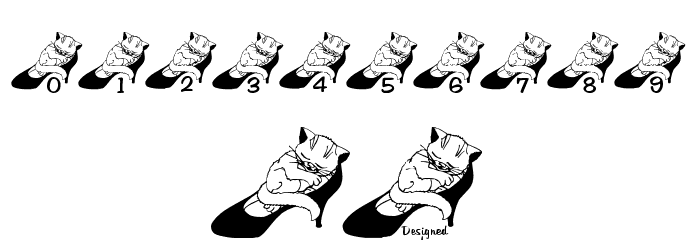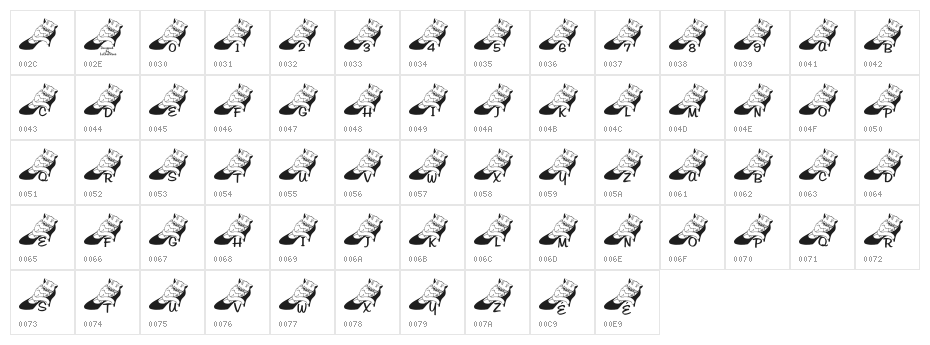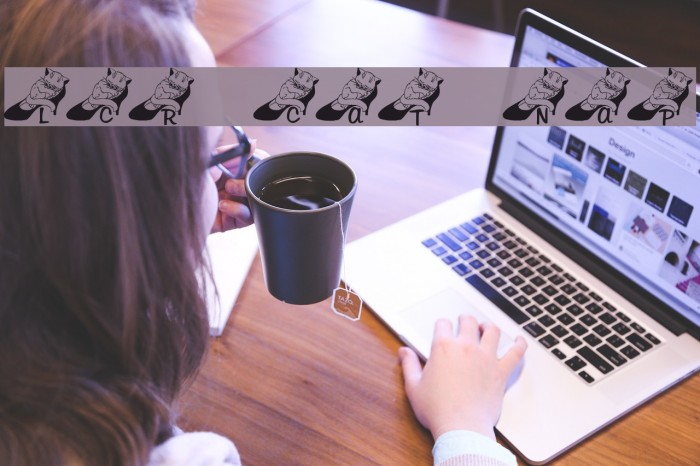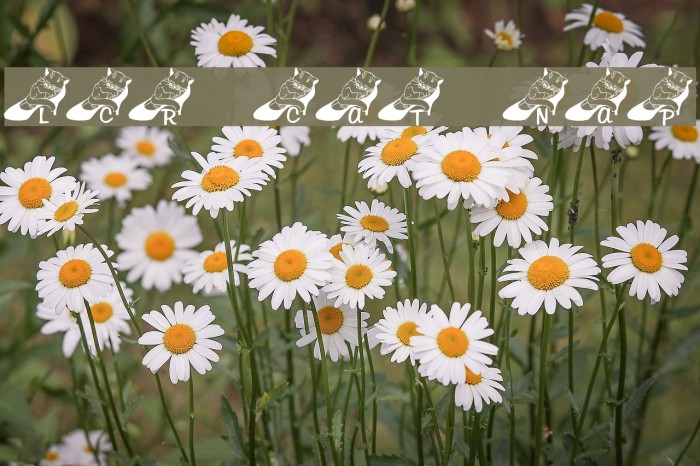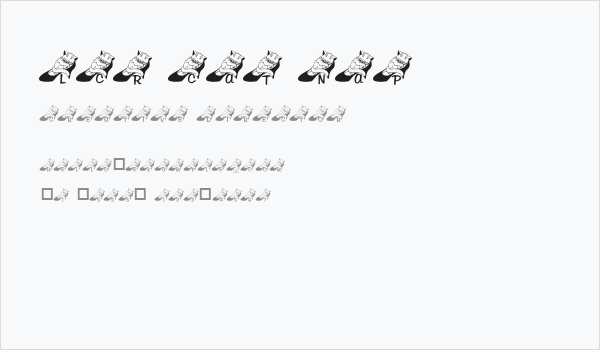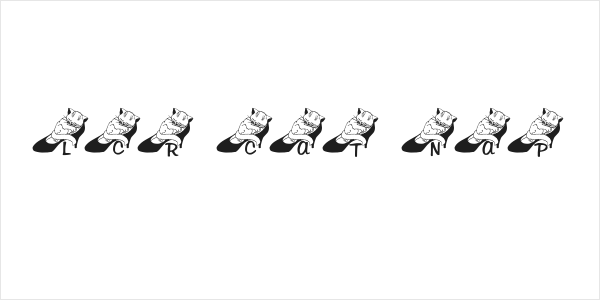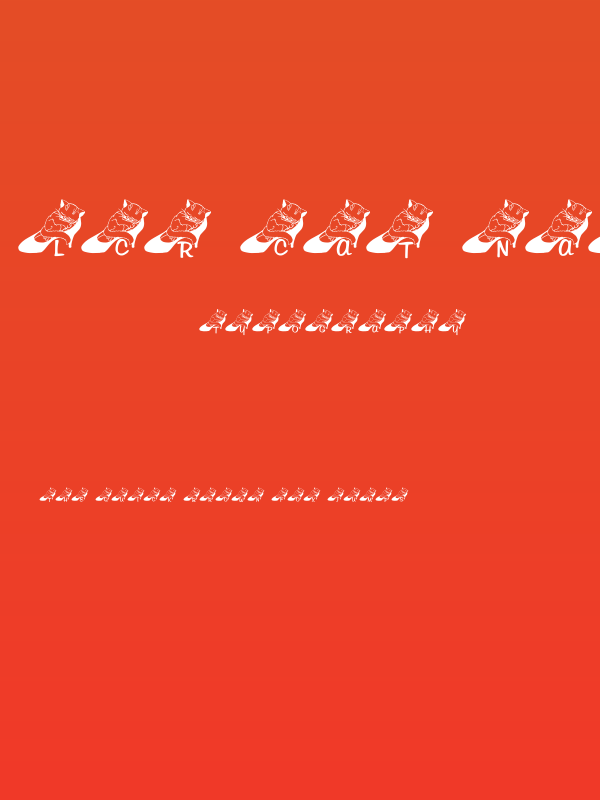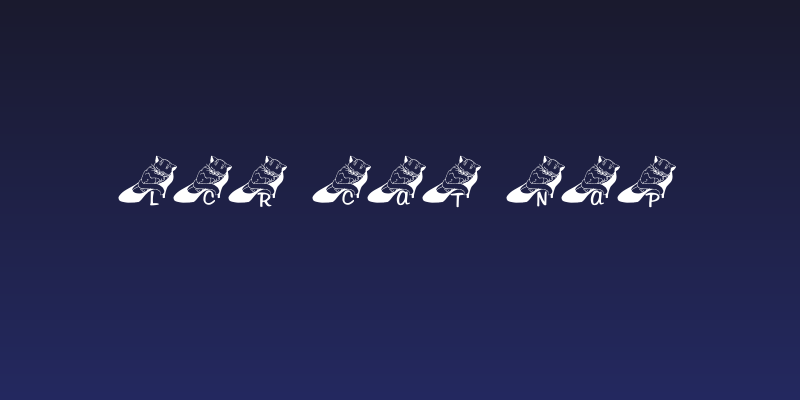
LCR Cat Nap Font
LCR Cat Nap Description
This decorative font features a playful and whimsical design where each character is accompanied by a charming illustration of a sleeping cat. The letters and numbers are integrated into the design, creating a unique and cohesive look. The font is highly stylized, with each character maintaining a consistent theme of relaxation and comfort, embodied by the cat motif. The overall appearance is both artistic and engaging, making it suitable for projects that require a touch of creativity and fun.
| Use Case | Logos, Invitations, Creative projects |
| Proposed Projects | Ideal for children's books, playful branding, pet-related products, and creative invitations. |